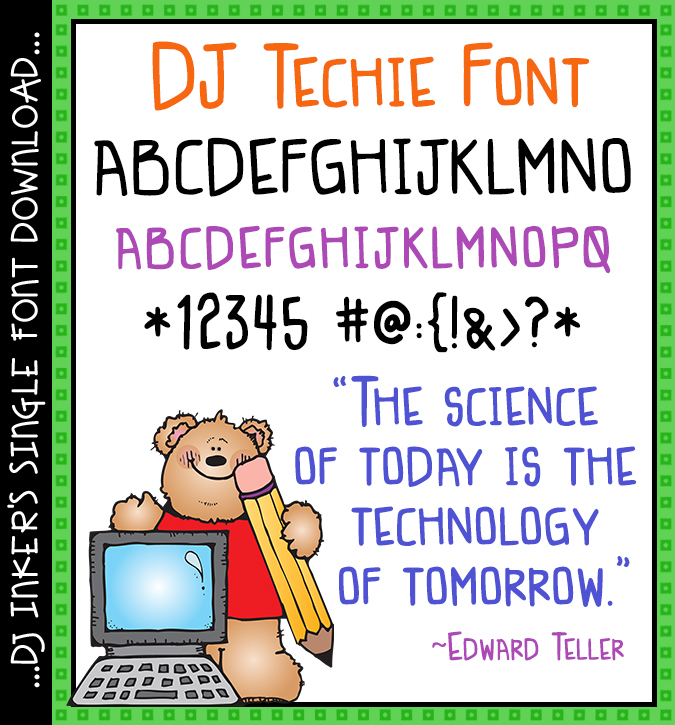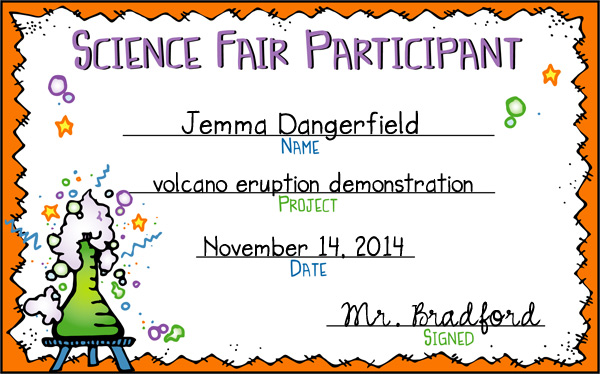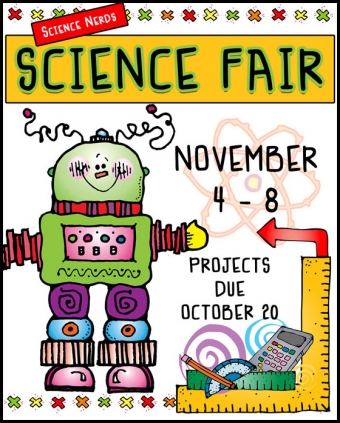
DJ Techie Font Download
You don't have to be a "techie" to use this fun computer style font!
for science, math, technology, computers, teachers and more.